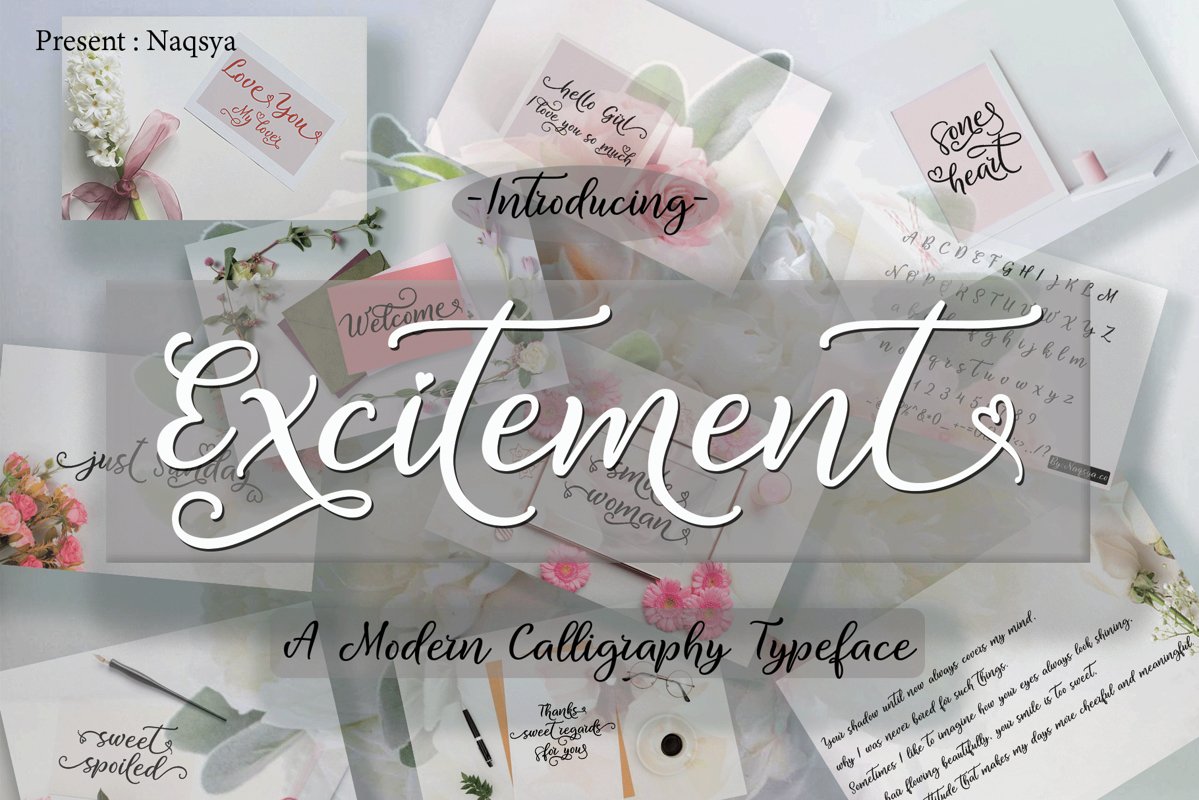
Excitement
Excitement Modern Calligraphy. This font was designed by handwriting, and it has a modern and unique forms of calligraphy, the writing style is very natural.
The Features of this fonts is;
Standart ligatures
Stylistic Alternates
Contextual Alternates
Stylistic sets
Can be used for various purposes.such as headings, logos, wedding invitation, t-shirt, letterhead, signage, lable, news, posters, badges etc. To enable the OpenType Stylistic alternates, you need a program that supports OpenType features such as Adobe Illustrator CS, Adobe Indesign & CorelDraw X6-X7.